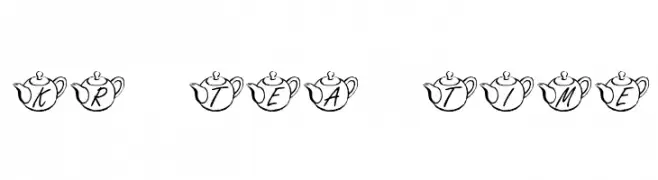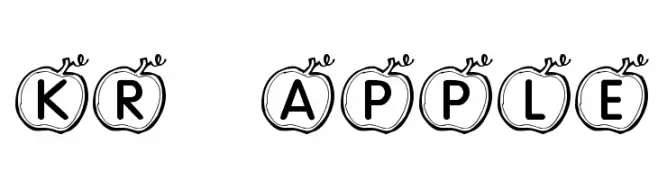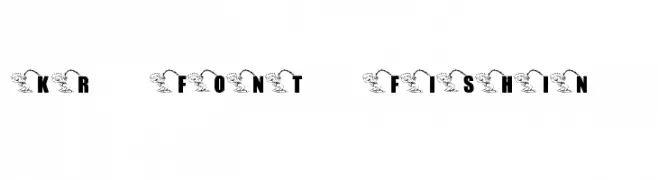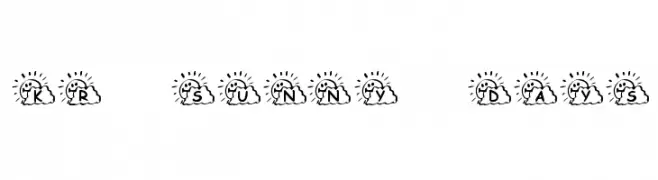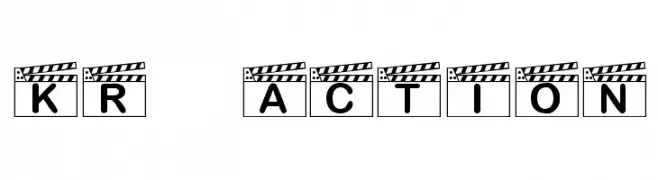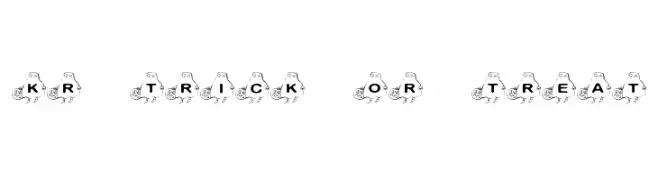
A decorative font with letters inside barbecue grills, perfect for themed designs.
A decorative font with uppercase letters inside tree silhouettes.
A playful font with letters and numbers inside teapot designs, featuring a cursive style.
A decorative font with bold letters and whimsical frog illustrations.
A playful font with each letter inside a heart shape, perfect for romantic themes.
A decorative font with letters inside pilgrim hats, perfect for festive projects.
A playful font with letters inside apple shapes, perfect for whimsical projects.
A decorative font with letters inside heart shapes, featuring floral and envelope motifs.
A bold, decorative font with a fishing theme, featuring fish illustrations alongside each letter.
A playful, cookie-inspired decorative font with bold, white letters on dark, round backgrounds.
A decorative font featuring farm-themed icons with bold, graphic silhouettes.
A decorative font with bold letters inside heart shapes, ideal for romantic themes.
A whimsical, decorative font with uppercase letters inside hand-drawn strawberries.
A playful font with characters inside sun and cloud motifs, ideal for whimsical projects.
A bold, cinematic font with characters inside clapperboard frames.
A playful, Halloween-themed font with letters inside cartoon ghost figures.
A decorative font with letters inside heart shapes, perfect for romantic themes.
A decorative font with script letters inside black heart shapes.
A playful font with letters inside caramel apple shapes, perfect for festive designs.
A whimsical font with letters inside coffee cup illustrations, featuring heart and steam motifs.